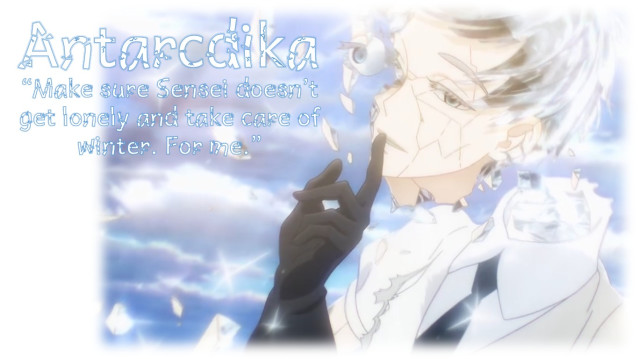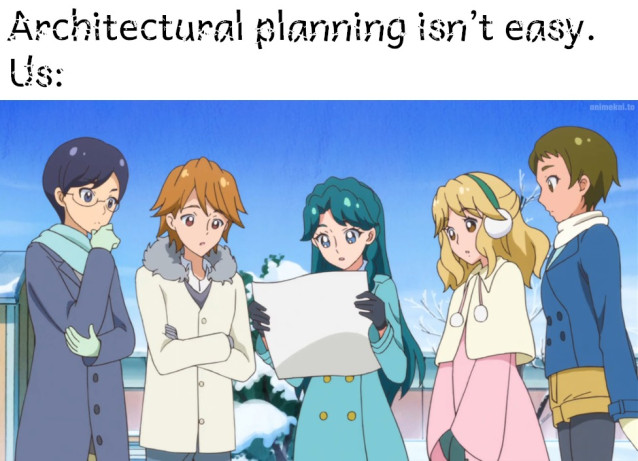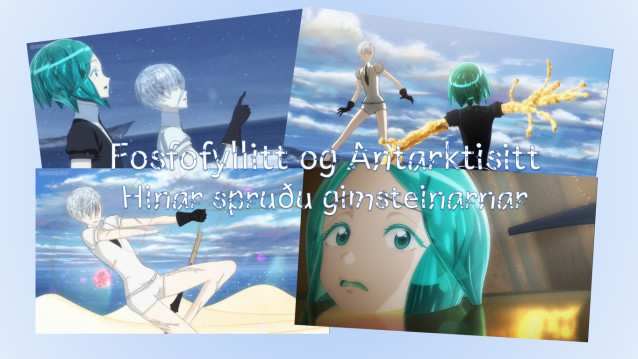
Antarcdika Font
Antarcdika is a shattered sans-serif font based on Andika by SIL International and was inspired by Antarcticite, a character in Land of the Lustrous manga by Haruko Ichikawa and its 2017 3D computer animated series adaptation produced by Orange Co, Ltd., with an English dub produced by Sentai Filmworks.
The name is a combination of the African word “andika” and the icy crytalline mineral first discovered in 1965, known as antarcticite. While this one can be used both as a display text and a body text font due to the presence of original font’s easy-to-distinguish letterforms and excellent legibility, it’s best used at slightly larger font sizes due to the shattering and cracked effects. It was only made as a tribute to the typographical works of Dutch animator, digital artist, digital graphic designer, game and software developer and former digital typographer Sander Kessels (of Lollibomb). Part of Doujin Fonts series.